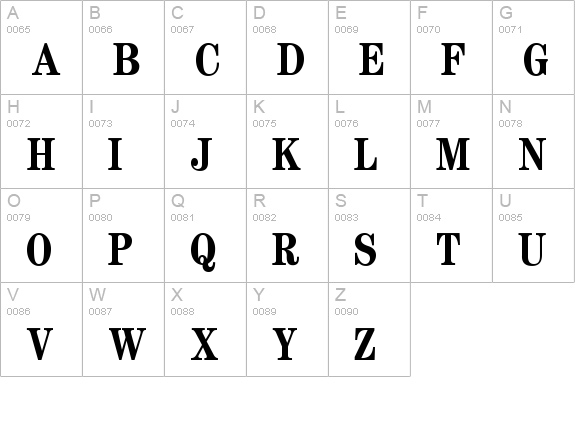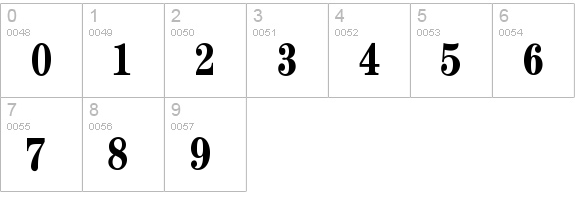
CenturyCondBold Font Details
Introducing CenturyCondBold font, a striking and versatile typeface that exudes modern sophistication and timeless elegance. With its bold and commanding presence, CenturyCondBold is perfect for making a statement in any design project. The font's clean lines and strong geometric shapes make it ideal for headlines, logos, branding, and more. What sets CenturyCondBold apart is not only its aesthetic appeal but also its accessibility. This premium font is available for free download exclusively at FontsMarket.com, allowing designers and creatives to elevate their work without breaking the bank. Whether you're working on a print design, website, or any other project that requires a touch of bold elegance, CenturyCondBold is the perfect choice to add a touch of sophistication and style. Download it today and see the difference it can make in your designs!